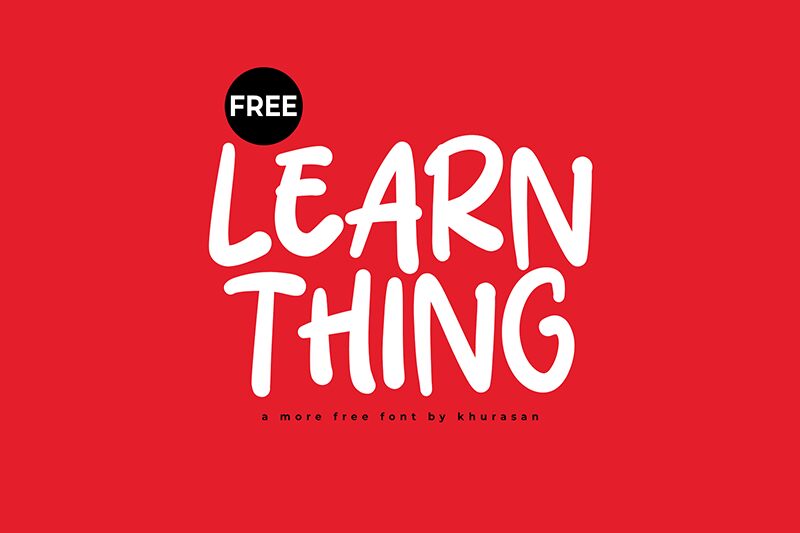
Learn Thing font is a free display cartoon font by Khurasan. Featuring a handwritten feel, this casual and energetic typeface truly captures the essence of the youth’s expressiveness. On its own, it could refer to multiple things without making the reader pause even for a second. Yet when combined with actual supporting texts, it perfectly complements the modern aesthetics of any design project.
Designers can download and incorporate Learn Thing into headings and subheadings within school posters and banners aimed at students. Also, consider it for flyers, advertisements, social media posting designs, website banners, postcards for parties/organizational events within educational institutions plus more!